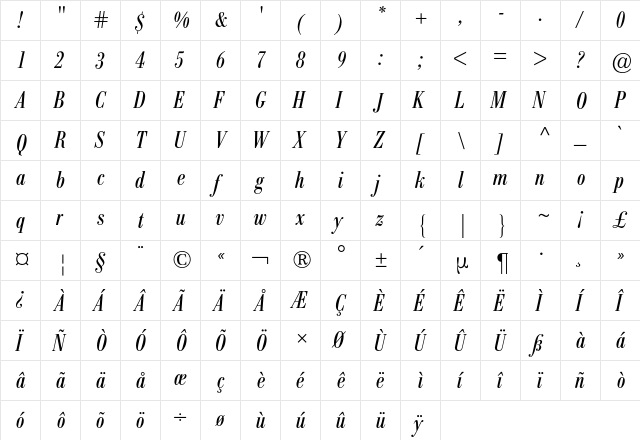
Bodoni Berthold Condensed BQ Regular
Design Context for Bodoni Berthold Condensed BQ Typeface
Bodoni Berthold Condensed BQ takes a measured approach to typography — its balanced proportions and neutral character make it a reliable workhorse for both digital and print work. Its narrow stance lets it pack a punch even in space-constrained designs.
Pro Tip: Pair Bodoni Berthold Condensed BQ with a font of contrasting weight or personality to build a more expressive typographic hierarchy.